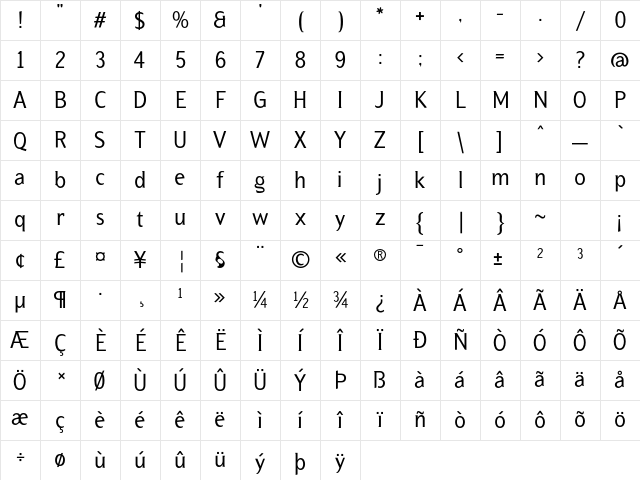
Formica Regular Free Font
Formica Regular
Design Context for Formica
Formica is a composed and adaptable typeface that performs quietly and consistently across a wide range of design contexts.